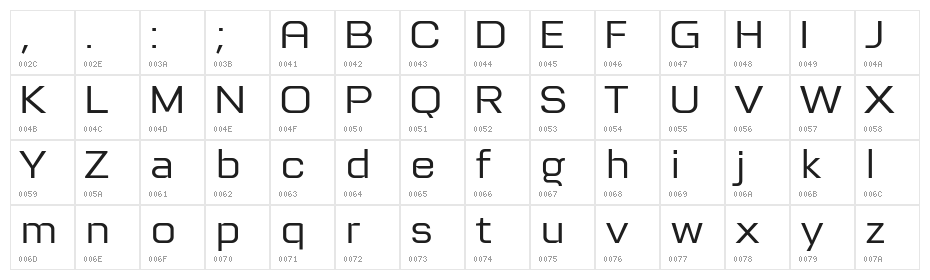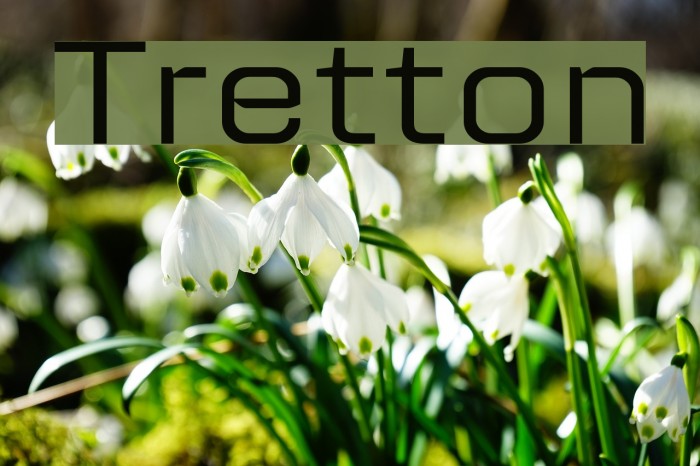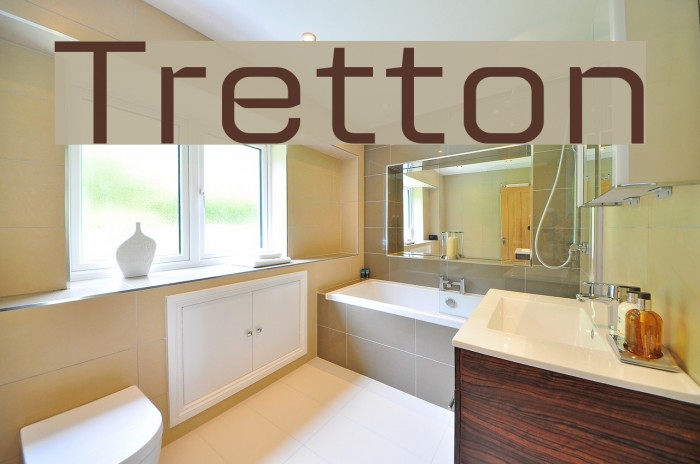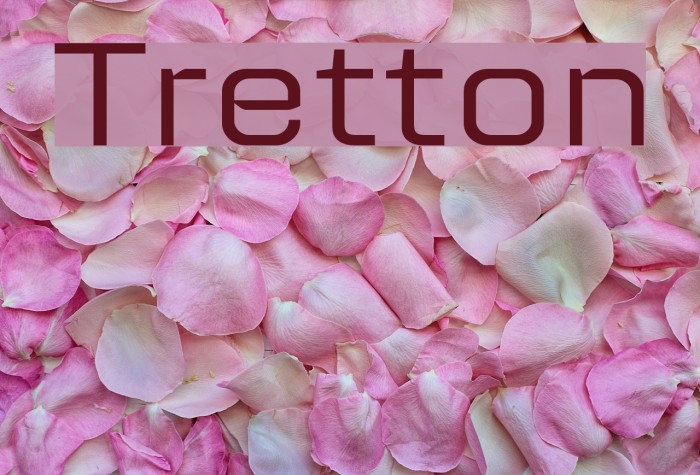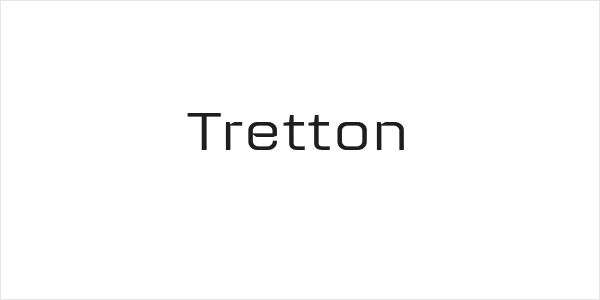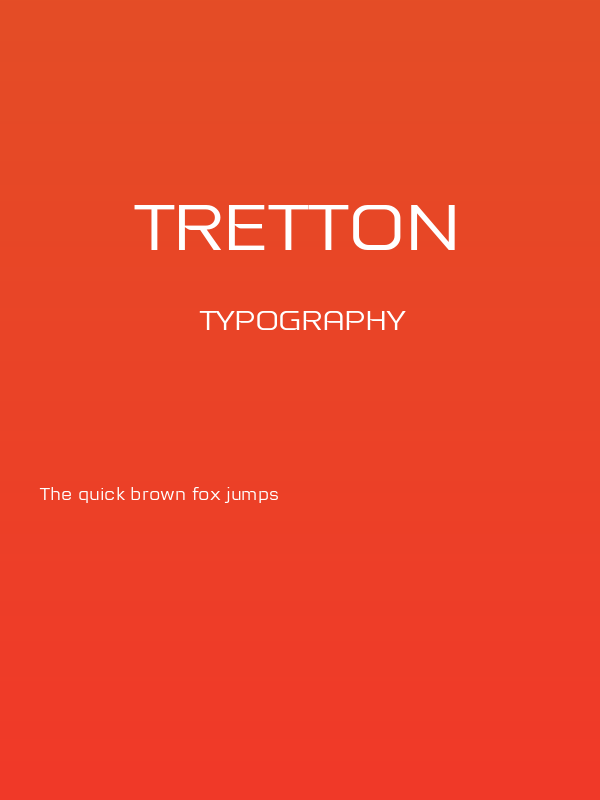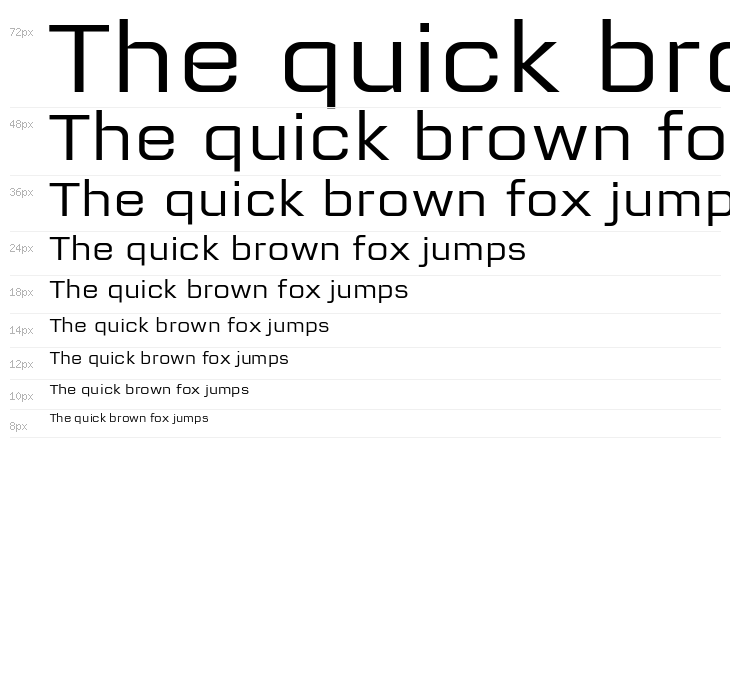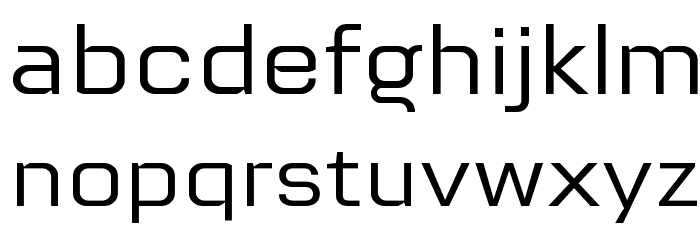
Tretton Font
Tretton Description
This font features a clean, modern sans-serif style with geometric influences. The characters are uniform in width, providing a balanced and harmonious appearance. The uppercase letters are bold and assertive, while the lowercase letters maintain a consistent height, enhancing readability. The numerals are clear and straightforward, making them suitable for various applications. Special characters are designed with simplicity in mind, ensuring they blend seamlessly with the rest of the typeface. The overall design is minimalistic, focusing on clarity and functionality.